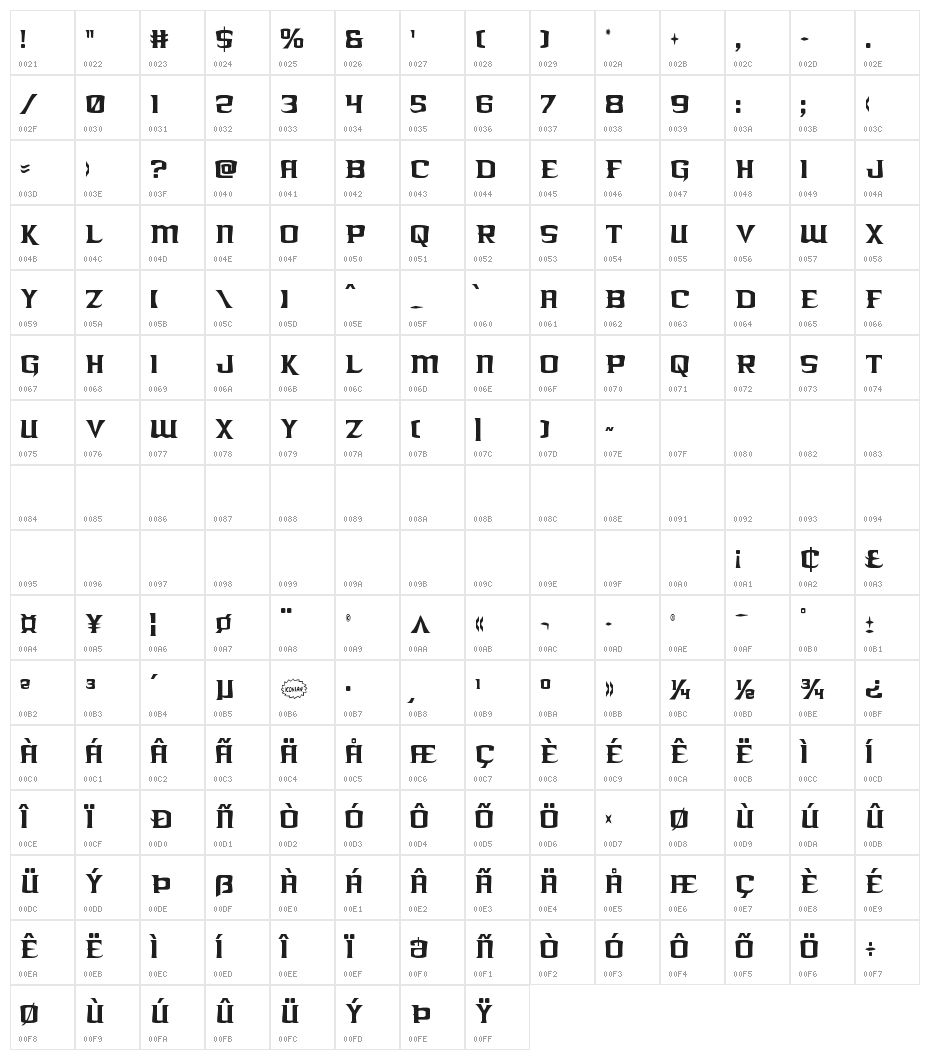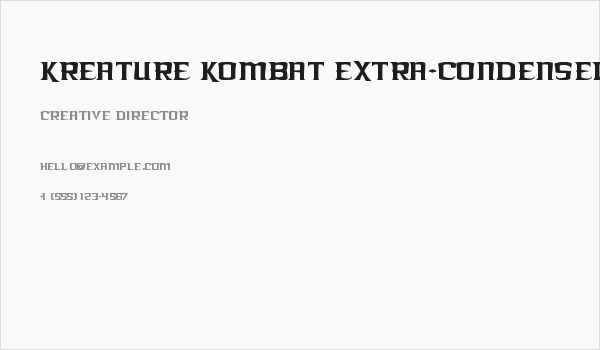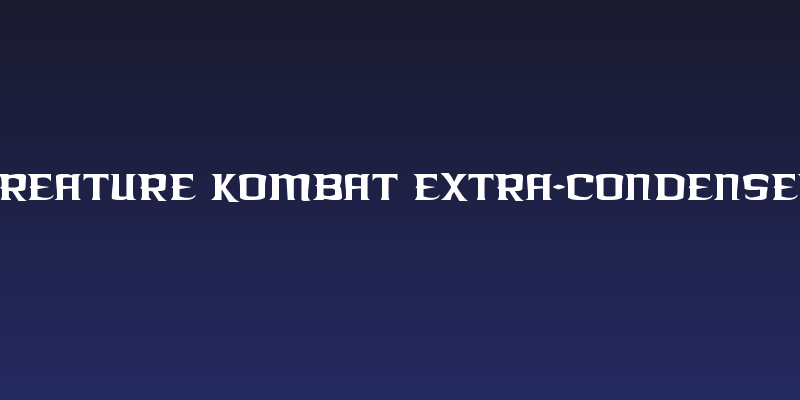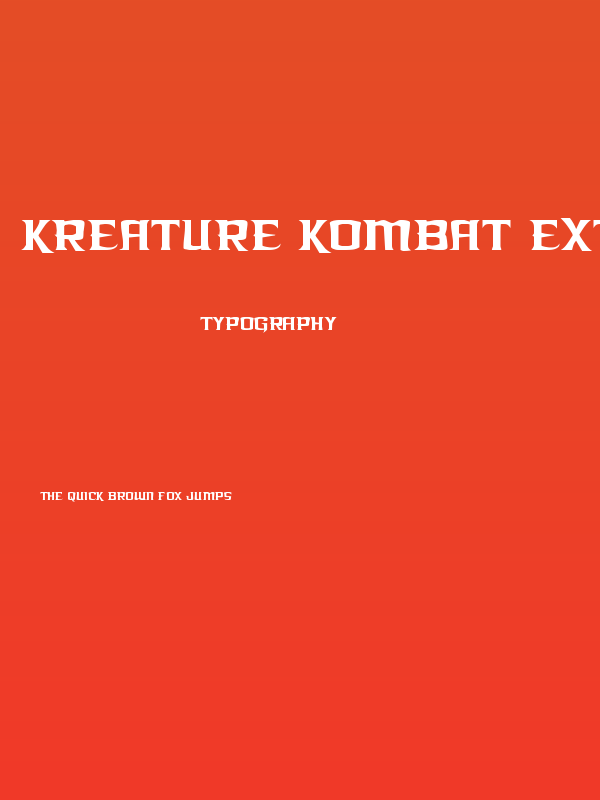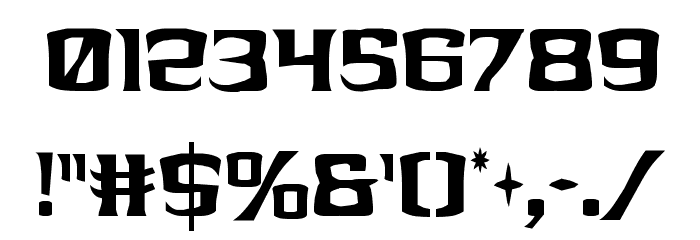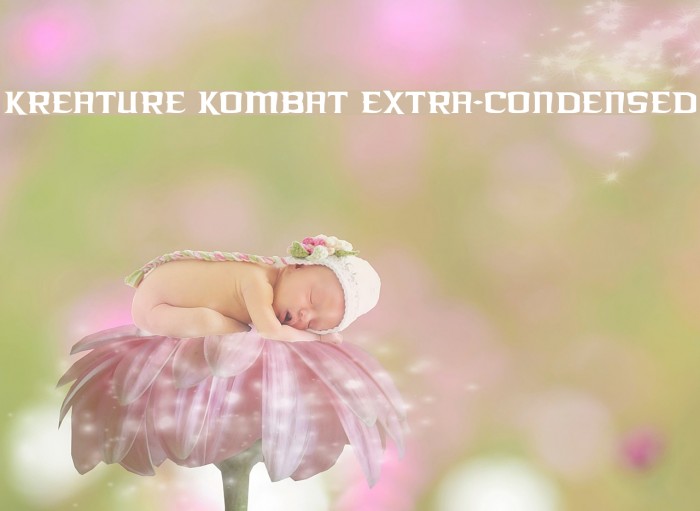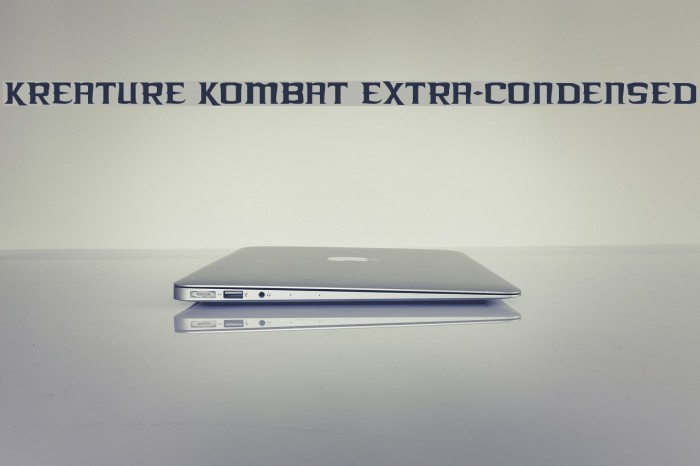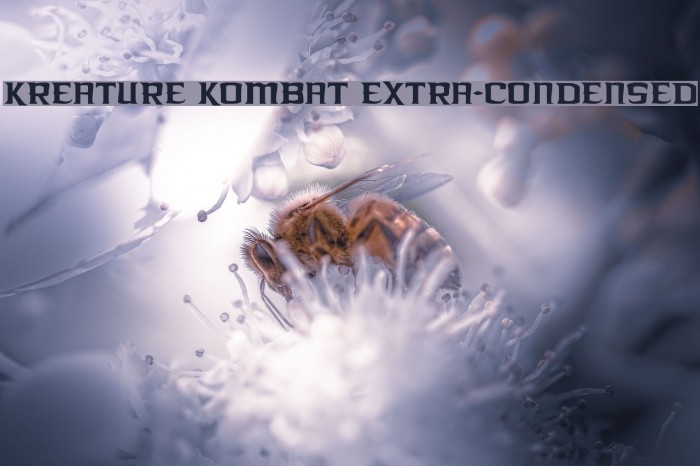
Kreature Kombat Extra-Condensed Font
Kreature Kombat Extra-Condensed Description
This font features a bold and aggressive style, characterized by sharp, angular edges and a condensed structure. The uppercase letters are particularly striking, with a gothic influence that gives them a dramatic and intense appearance. The lowercase letters maintain this aesthetic, ensuring consistency across the typeface. Numbers and special characters are equally bold, making them stand out with a strong presence. The overall design is highly decorative, making it suitable for projects that require a distinctive and impactful look.
| Proposed Projects | Ideal for video game titles, movie posters, branding for edgy or alternative products, and any project requiring a strong visual impact. |